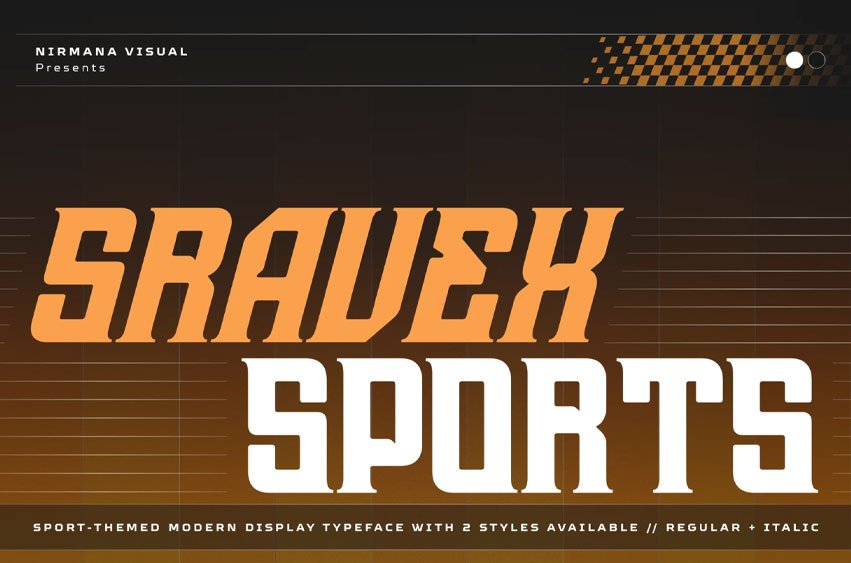
Sravex Sports Font
Sravex Sports Font is a bold and futuristic sport font designed with a powerful italic style that brings speed, energy, and modern performance into every design.
Perfect for sports branding, racing logos, esports, automotive projects, technology posters.